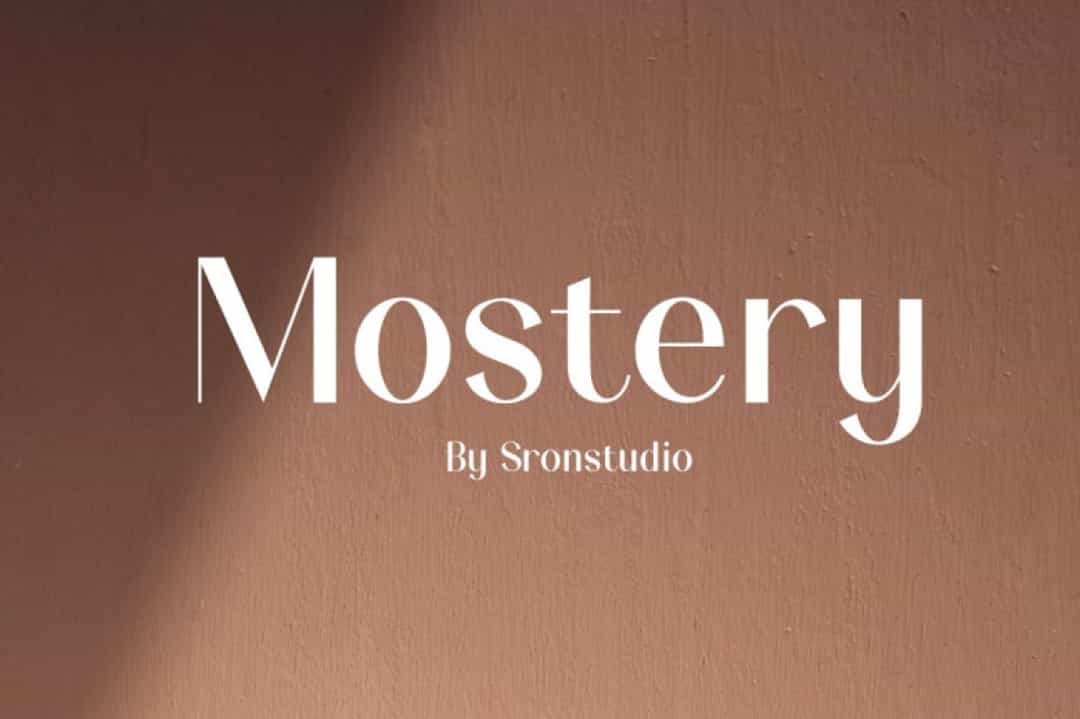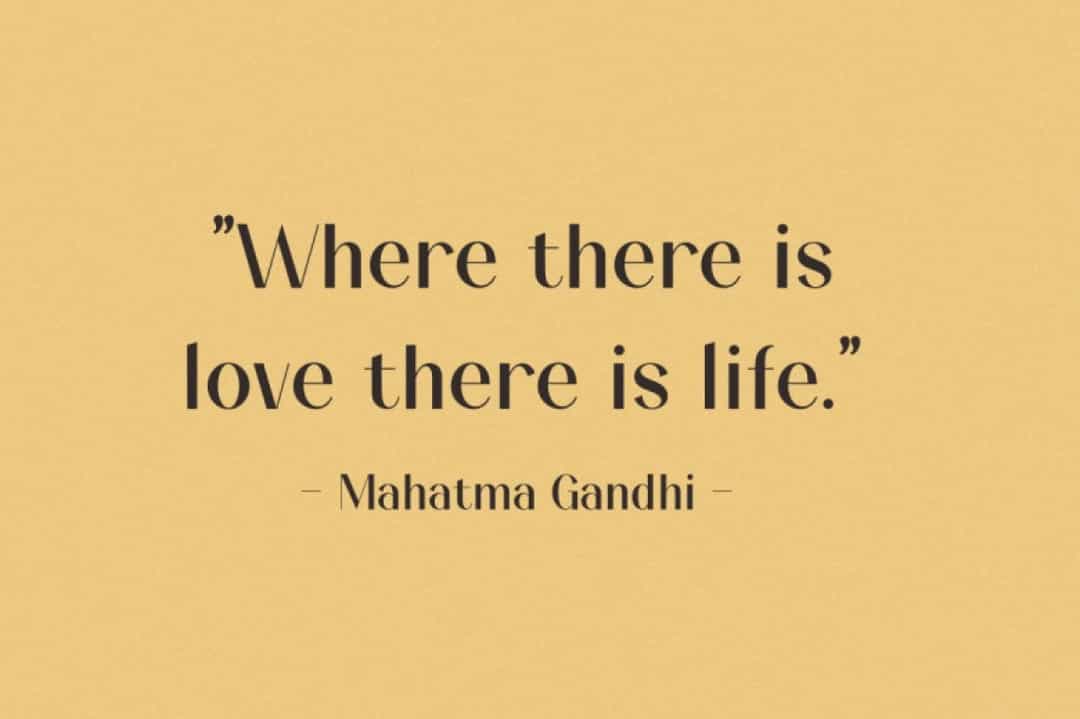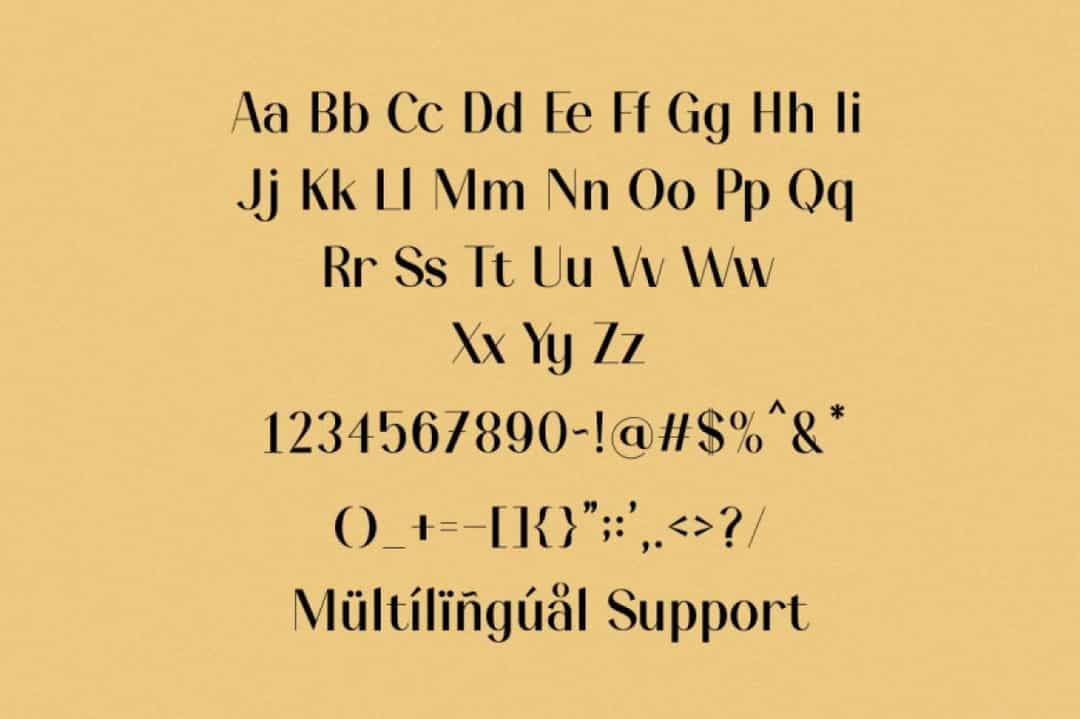
Discover Mostery Font, part of the Sans Serif collection—a versatile and unique font perfect for adding a personal touch to your projects. Download it for free and enjoy crafting designs with style, from invitations to social media posts. This font is available exclusively for personal use, giving you the freedom to create without limits. Unlock your creativity with Mostery Font today!
Mostery can be described as a modern Sans Serif font designed specifically to create invitations, branding materials, wedding invites, stationery designs and social media posts. Furthermore, Mostery works well for advertising campaigns as well as packaging labels, product designs photographs watermarks special event watermarks etc.